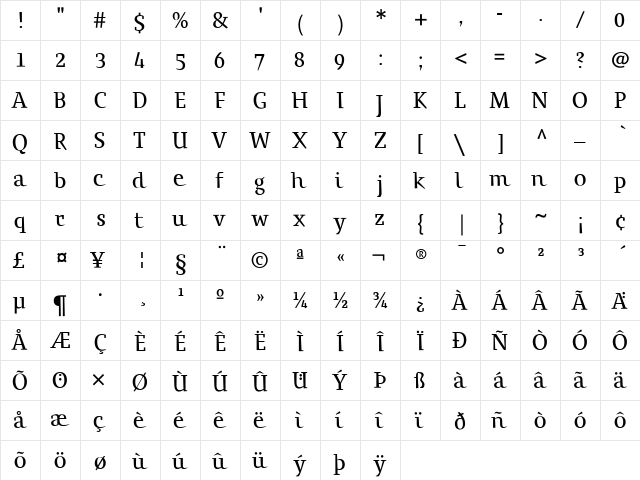
KeuleOldStyleEF Regular
Design Context for KeuleOldStyleEF Typeface
KeuleOldStyleEF carries the refined structure of traditional serif typography, with bracketed terminals and considered proportions that communicate credibility and craft.